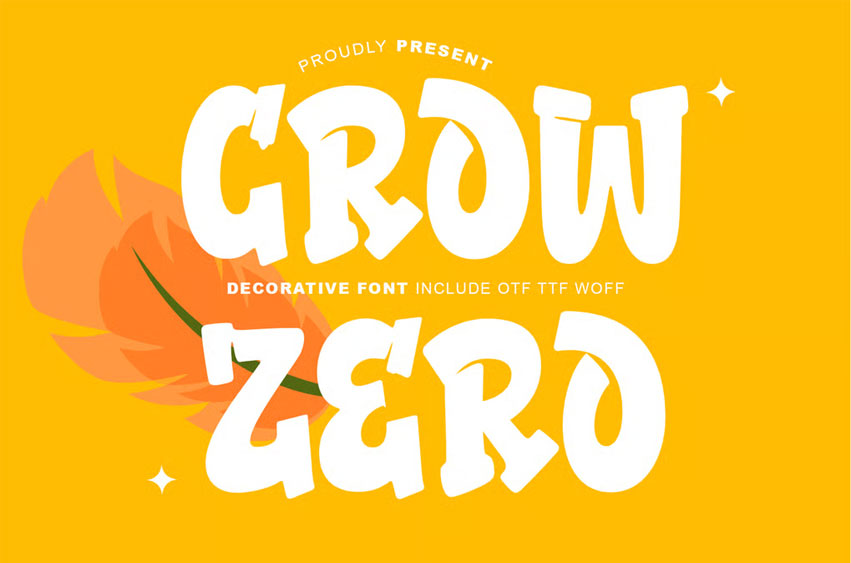
Crow Zero Font is perfect for many projects: books, magazines, logos, branding, photography, quotes, blog headers, posters, advertisements, etc.
Crow Zero Font Preview